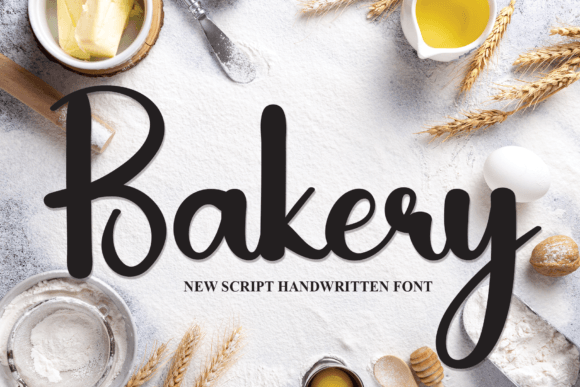
The Sweet Taste of Creativity
Have you ever found yourself in the midst of a design project, struggling to convey the perfect tone? Maybe you’re crafting the perfect wedding invitation, or creating a card for a loved one. Whatever the task, we’ve all been there – searching for that elusive spark to bring our ideas to life.
Enter Bakery Font, a delightful handwritten font that adds a touch of whimsy and charm to any design. This sweet and friendly font is the perfect accompaniment to your creative endeavors, whether you’re a seasoned designer or just starting out.
For designers, Bakery Font is a valuable asset – a go-to tool for adding a fun and playful twist to any project. Its versatility and charm make it an ideal choice for a wide range of applications, from wedding invitations to greeting cards and beyond.
Bakery Font Key Features
- Unique Characteristics: Bakery Font features a unique, hand-drawn style with subtle imperfections, giving it a warm and inviting feel.
- Font Weight and Style: Bakery Font comes in a range of font weights and styles, including light, regular, bold, and italic, allowing users to customize their text to suit their needs.
Bakery Font Review
I recently had the chance to work with the Bakery Font and I have to say, it’s a unique addition to any design project. Here are some of its strengths and weaknesses.
- Quirky charm: The Bakery Font has a distinct, hand-drawn feel that adds a touch of whimsy to any design.
- Customization options: The font offers a range of weights, styles, and sizes, making it easy to tailor it to your project’s needs.
- Legibility: Despite its ornate design, the Bakery Font is surprisingly legible, even at smaller font sizes.
- Limited use cases: The Bakery Font’s quirky design may not be suitable for all types of projects, such as formal reports or technical documents.
- Lack of consistency: Some of the font’s letterforms may not be perfectly consistent, which can be jarring to the eye.
- Not ideal for small text: While the font is legible, it’s not ideal for small text sizes, where its intricate details can become difficult to read.
Overall, the Bakery Font is a fun and creative choice for designers looking to add some personality to their work. While it may not be suitable for all projects, it’s a great option for anything that requires a touch of whimsy and charm.
To get the most out of Bakery Font, use it for:
Cake decorating and food labels
Restaurant menus and signage
Wedding invitations and event decor
Remember to pair Bakery Font with complementary colors and designs to create a cohesive look.
Alternatives to Bakery Font for Designers
Bakery Font is a popular script font used in various design projects, but it may not be suitable for every project. Here are some alternatives that can be used in different scenarios.
Ostrich Sans is a modern, elegant script font with a touch of sophistication. It’s ideal for use in high-end branding, advertising, and editorial projects where a refined and polished look is desired. Compared to Bakery Font, Ostrich Sans has a more refined and streamlined design, making it suitable for projects that require a more mature and professional tone.
Great Vibes is a beautiful, handwritten script font that’s perfect for creating a warm and inviting atmosphere. It’s ideal for use in projects that require a relaxed and casual tone, such as food and beverage branding, event invitations, and social media graphics. Compared to Bakery Font, Great Vibes has a more playful and expressive design, making it suitable for projects that require a more laid-back and approachable tone.